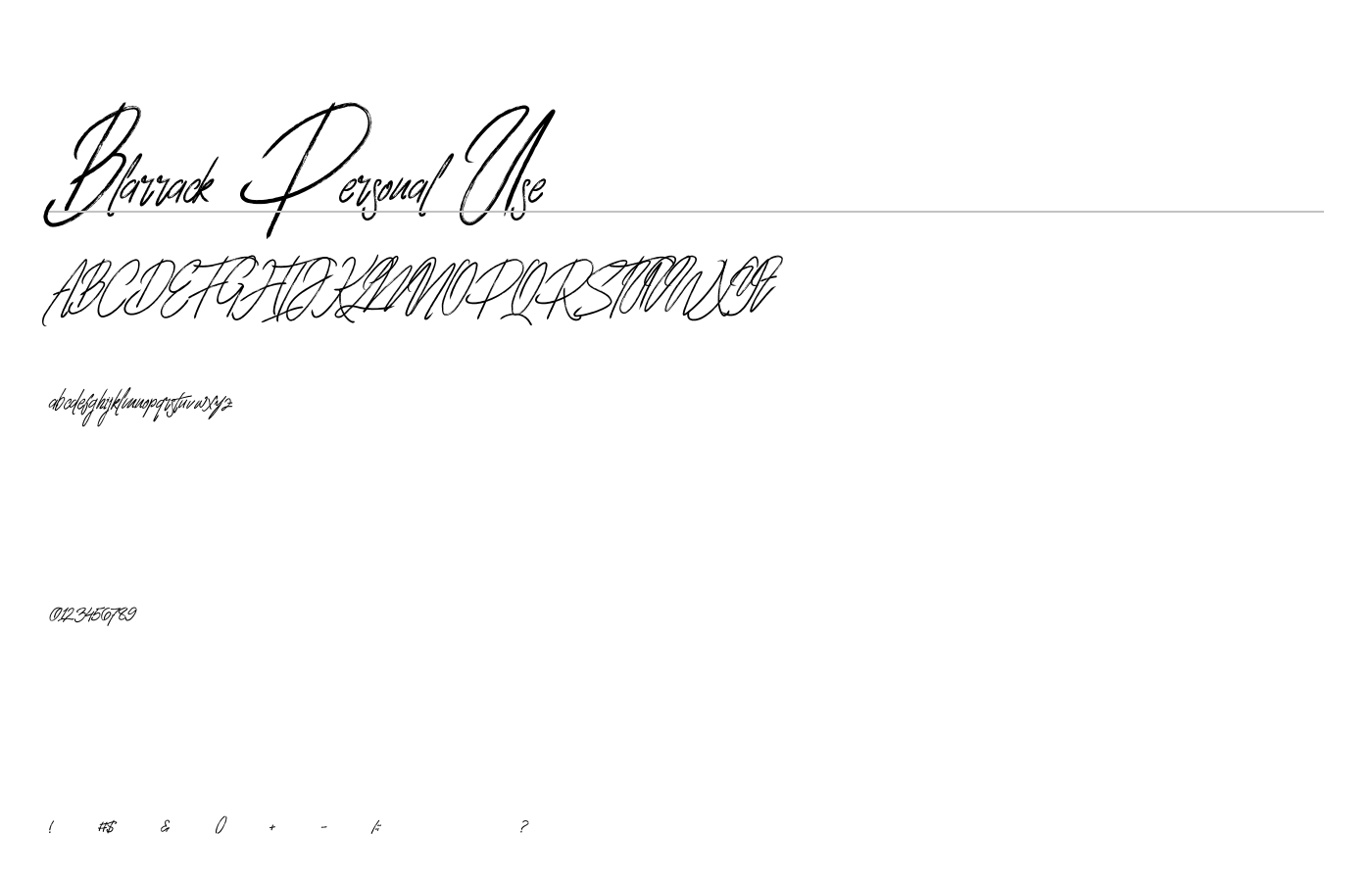
Blarrack Personal Use is an elegant, handwritten script font characterized by its tall, slender letterforms and delicate, flowing strokes. It exudes a sophisticated and artistic feel, making it ideal for personal signatures, invitations, and decorative branding where a graceful, intimate touch is desired. This font works best in display settings, adding a refined, personal flair to projects that require a unique and stylish handwritten style.
| Font family | Blarrack Personal Use Font |
| Designer | Vaca Tama |